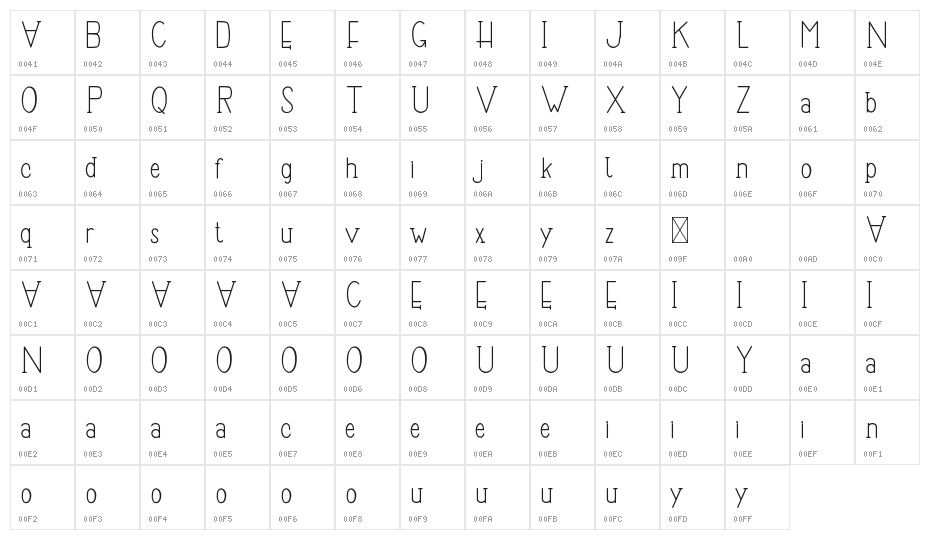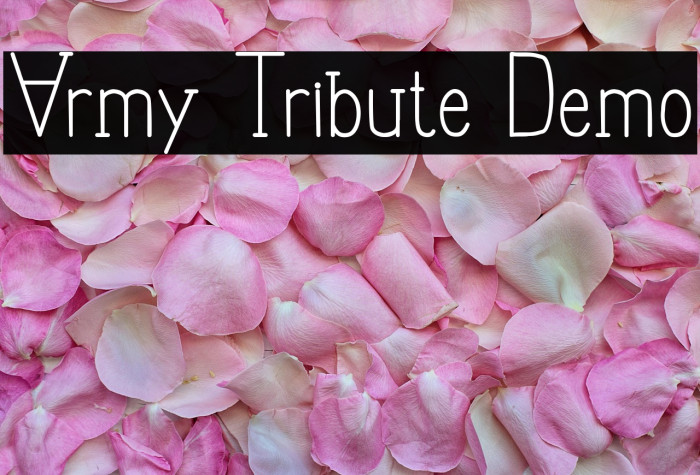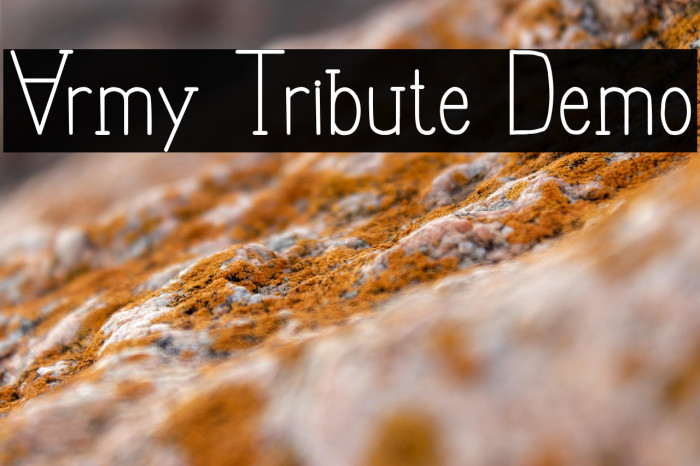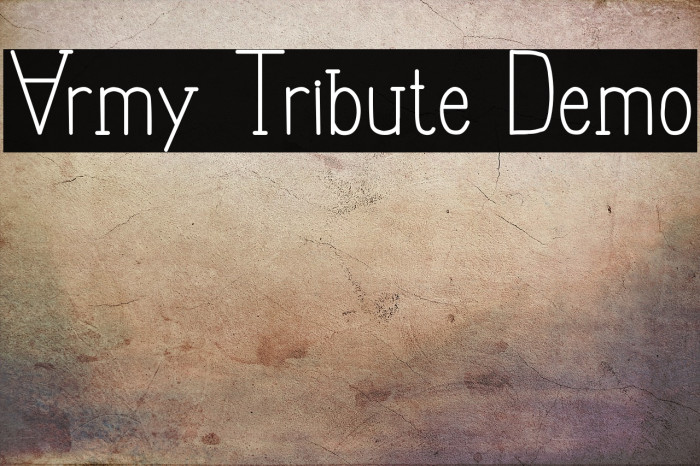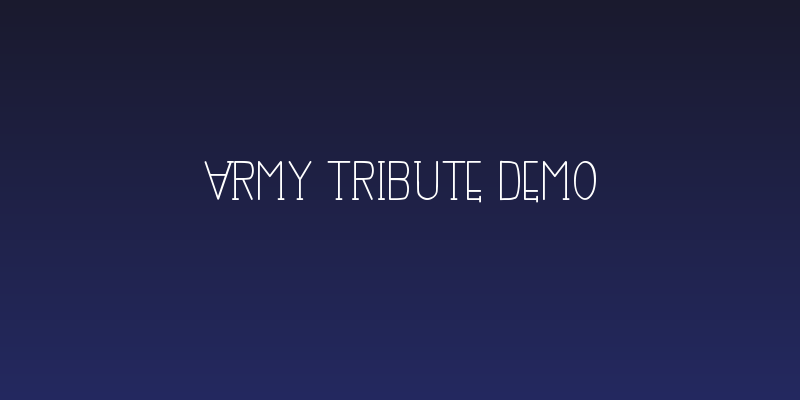
Army Tribute Demo Font
Army Tribute Demo Description
This font features a unique blend of geometric and military-inspired elements, characterized by its clean lines and structured forms. The uppercase letters exhibit a distinct angularity, with certain characters like 'A' and 'V' showcasing sharp, pointed serifs that add a sense of precision and discipline. The lowercase letters maintain a consistent height, contributing to a uniform appearance, while the rounded edges soften the overall look, balancing the rigidity of the uppercase. The numerals and special characters follow the same design principles, ensuring cohesion throughout the typeface. This font's design is both modern and timeless, making it versatile for various applications.